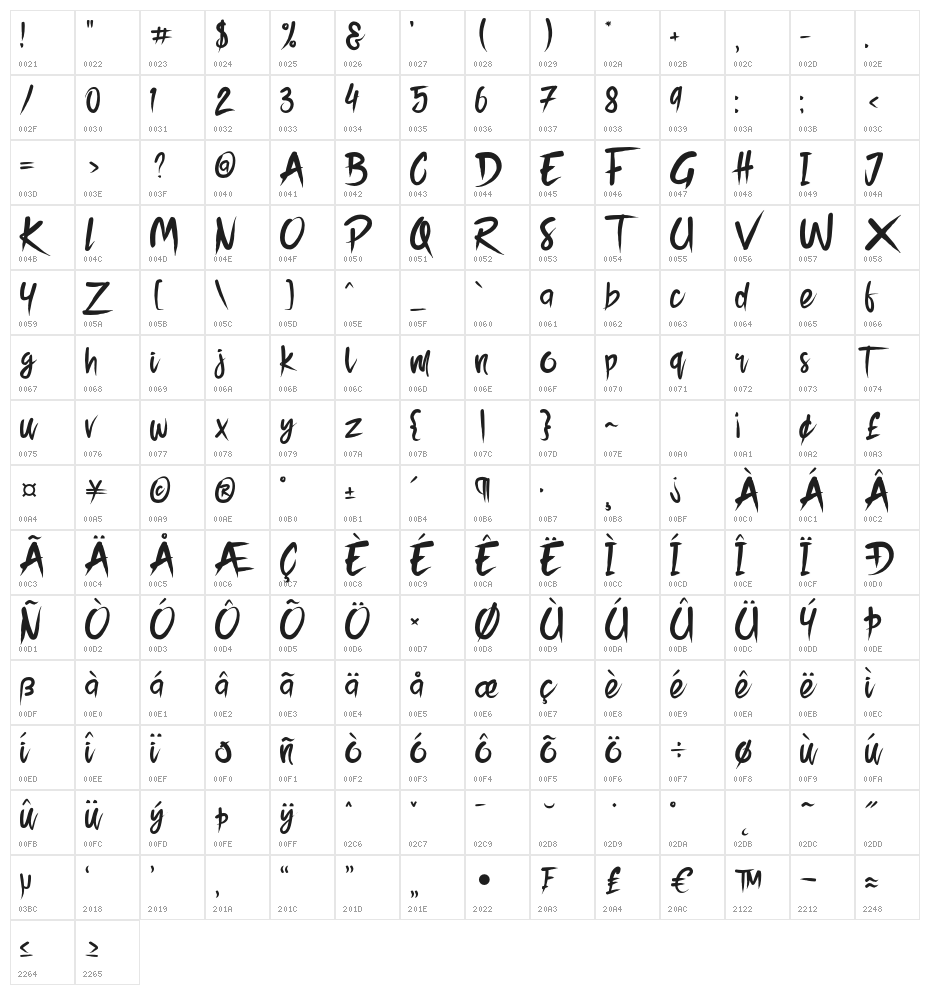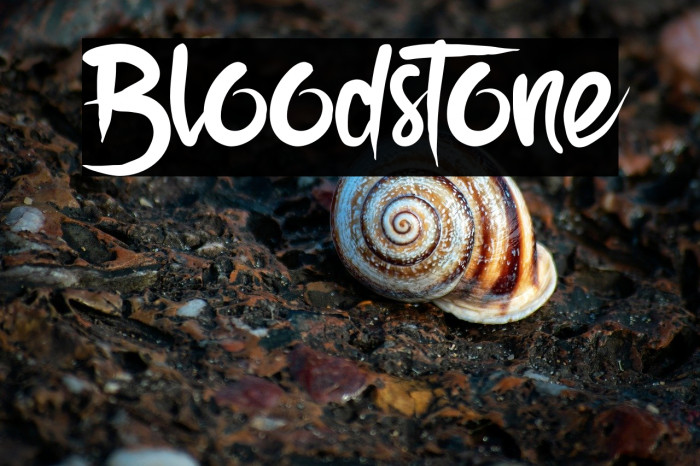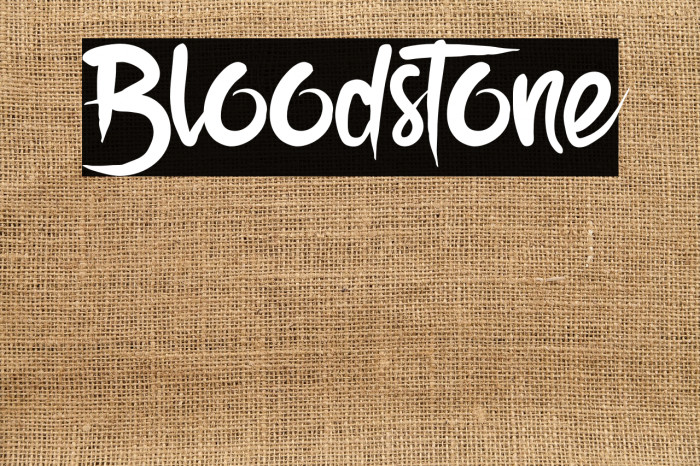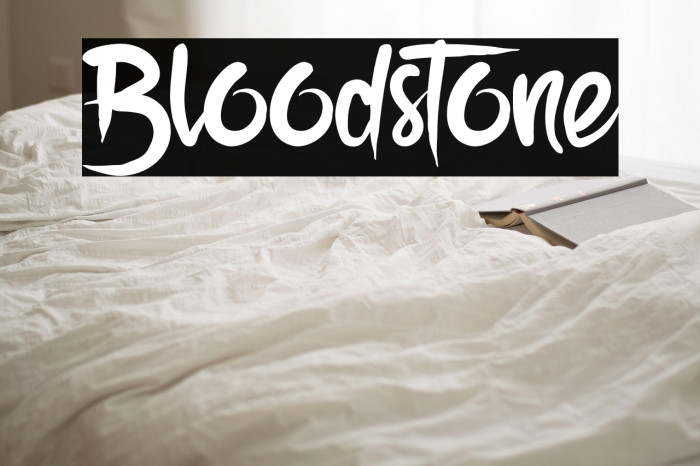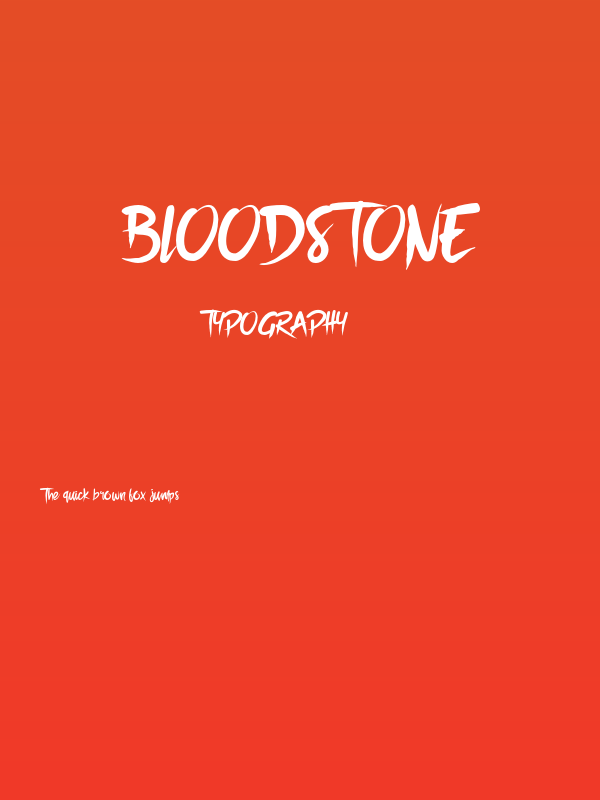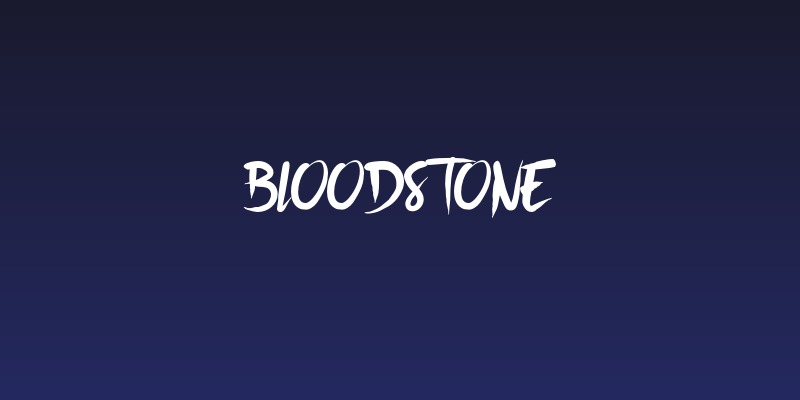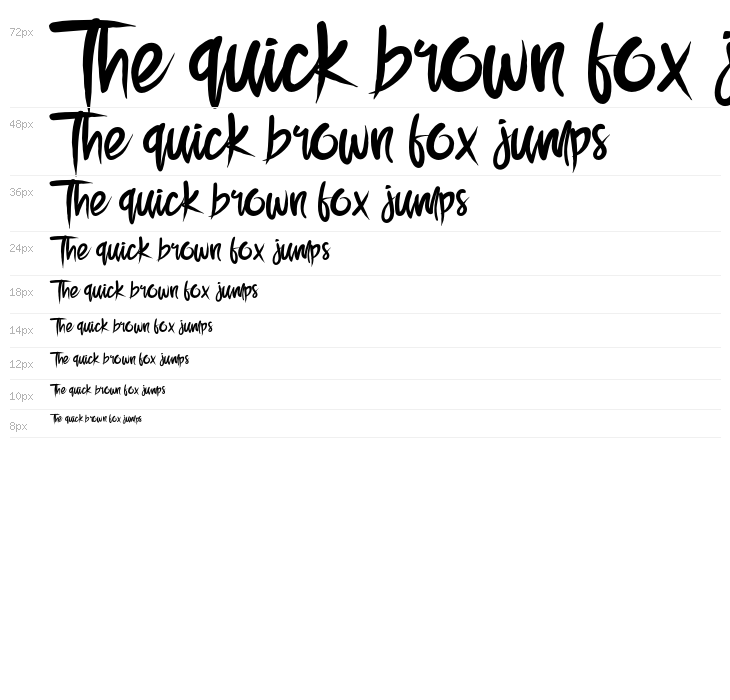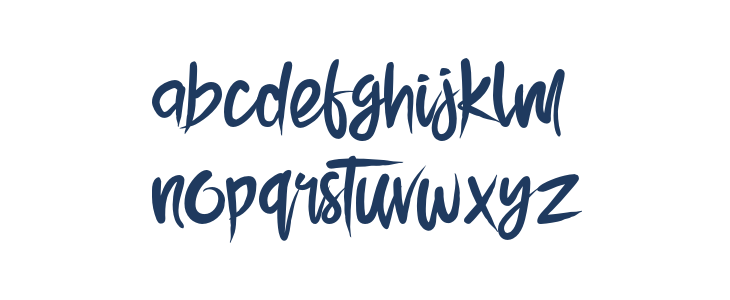
Bloodstone Font
Bloodstone Description
This font exhibits a bold, energetic style with a hand-painted appearance. The letters are characterized by their dynamic brush strokes, giving a sense of movement and fluidity. The uppercase and lowercase letters maintain a consistent style, with sharp angles and varying stroke widths that add to its expressive nature. The numerals and special characters follow the same aesthetic, ensuring a cohesive look across all glyphs. This font's artistic flair makes it stand out, perfect for projects that require a touch of creativity and boldness.
Proposed ProjectsIdeal for posters, album covers, branding, and any creative projects that require a bold statement.